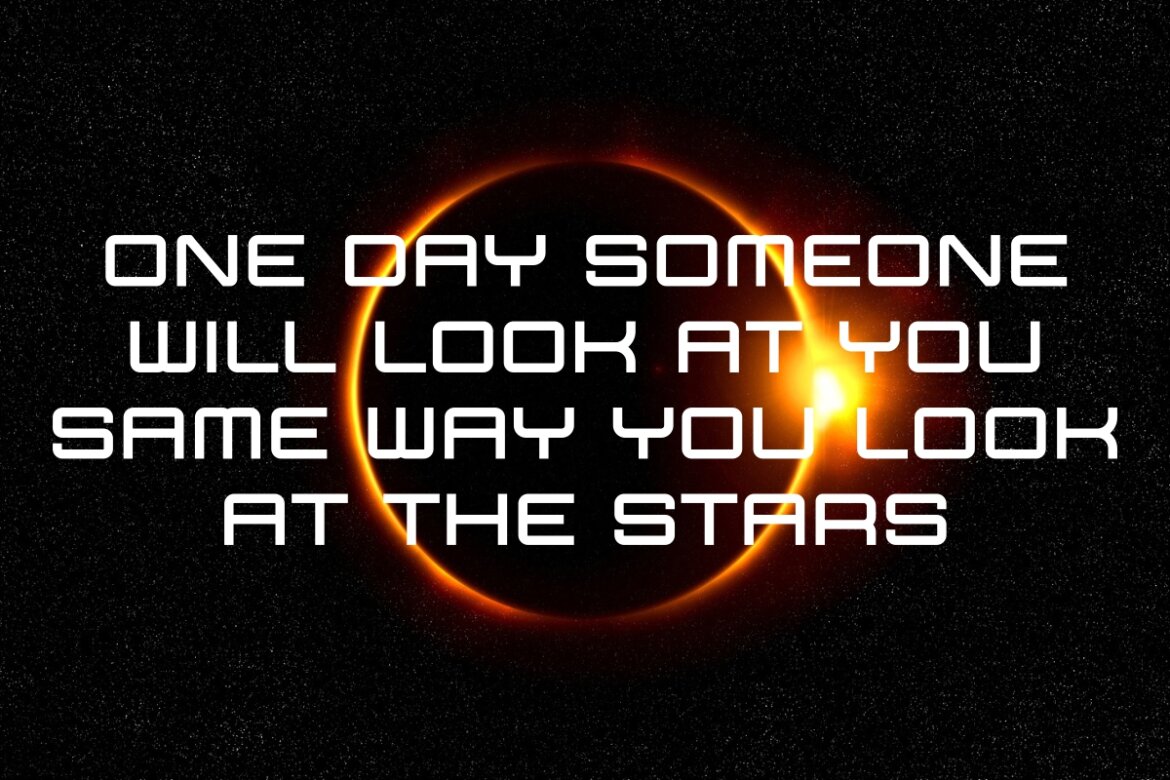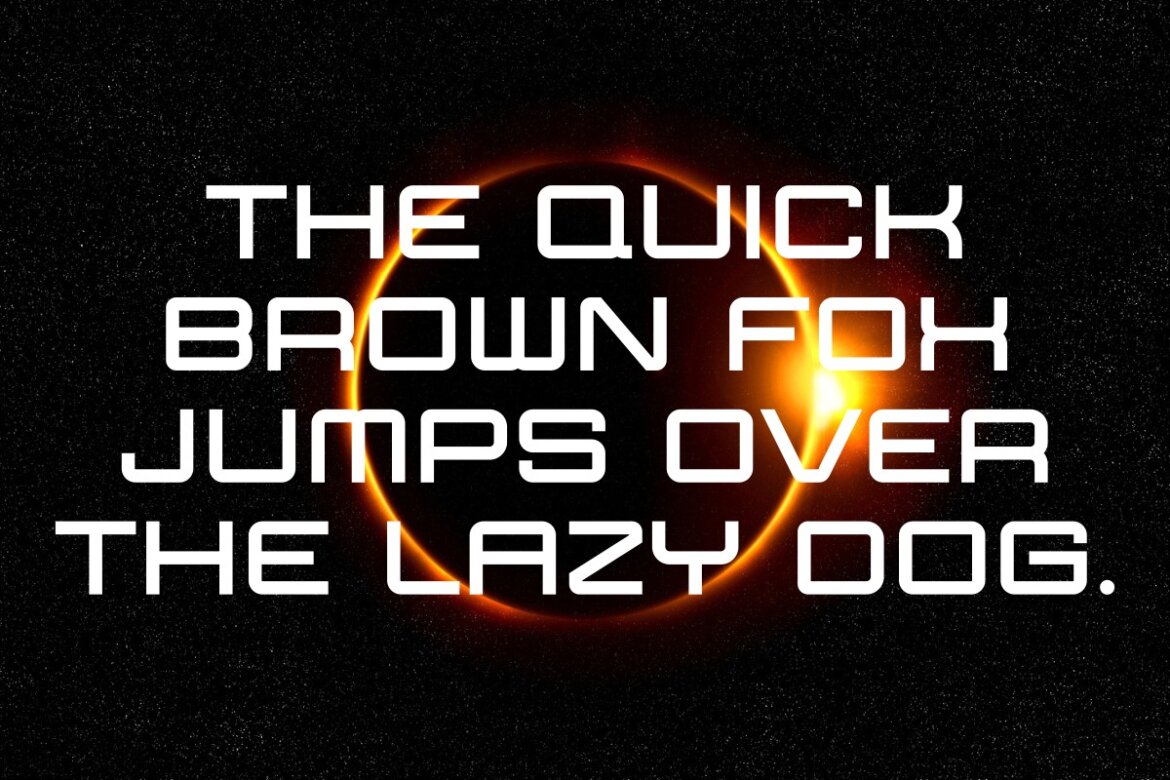
Solar Eclipse - Futuristic FREE Font
Solar Eclipse
Solar Eclipse is an intense and dramatic futuristic display font that captures the mystery and power of space phenomena. Characterized by its bold, wide, and stark geometric forms with distinctive rounded square edges, this all-caps typeface projects a commanding presence. It's the perfect font for designs requiring a powerful sci-fi aesthetic, such as movie titles, gaming interfaces, space-themed branding, technology promotions, and high-impact digital graphics. Solar Eclipse provides a clean, modern, and high-energy feel, making any text look instantly significant and otherworldly.
• cinematic authority: instantly delivers a powerful, dramatic, and movie-title quality to any headline or logo.
• high-visibility impact: bold, wide forms ensure maximum visual presence in gaming, tech interfaces, and large digital displays.
• modern branding: projects a strong sense of innovation, power, and sophisticated reliability for technology brands.
• ready-to-use sci-fi: provides a sleek, cutting-edge aesthetic essential for all futuristic and space-themed projects.